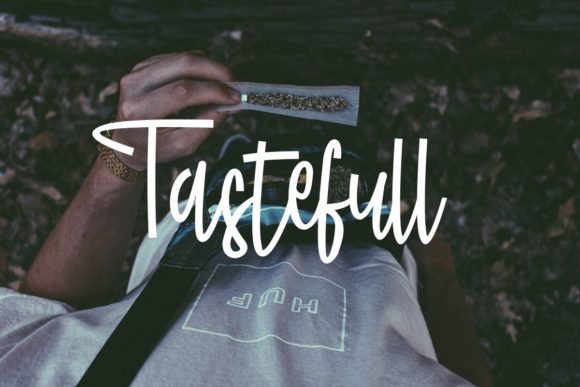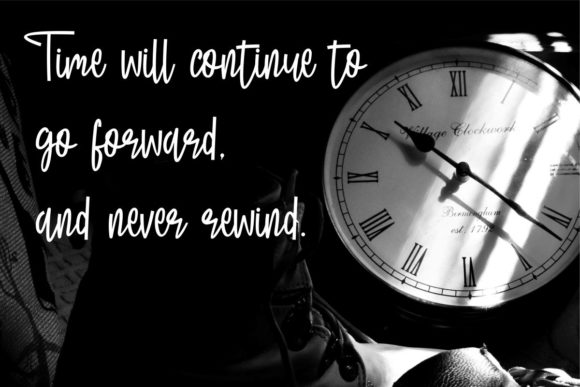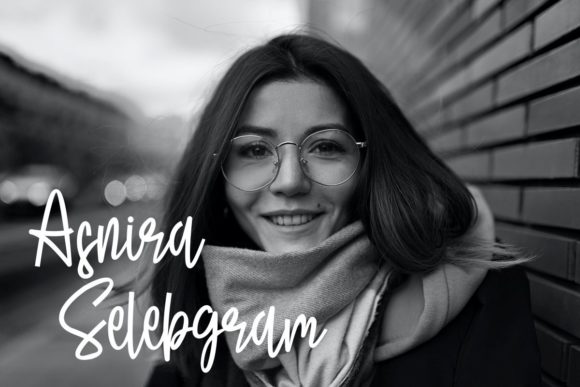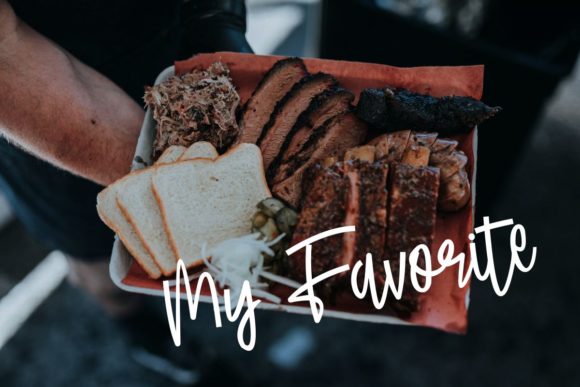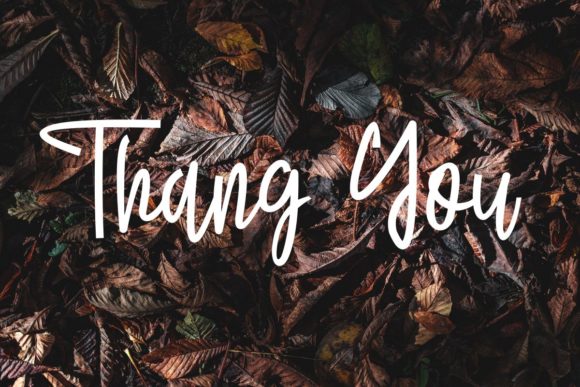
Djarum Solution Font
About Djarum Solution Font
“Djarum Solution” is a one-of-a-kind and intriguing handwritten font that sets itself apart with its unique and captivating design. With its distinctiveness, this font has the potential to add a touch of creativity and originality to a wide range of design projects. Here are some ways you can utilize “Djarum Solution” to elevate your creations and bring your projects to new heights:
1. Branding and Logos: Use “Djarum Solution” for branding purposes, including logos, to give your brand a distinct and memorable identity.
2. Product Packaging: Apply the font to product packaging to create eye-catching and interesting designs that stand out on the shelves.
3. Poster Designs: Design captivating posters with “Djarum Solution” to grab attention and convey messages in a unique and visually appealing way.
4. Magazine Titles: Utilize the font for magazine titles and headlines to add a touch of creativity and intrigue to your publication.
5. Social Media Graphics: Enhance your social media posts with “Djarum Solution” to create engaging and eye-catching content for your audience.
6. T-shirt Designs: Design original and artistic t-shirt graphics using “Djarum Solution” to create standout apparel.
7. Book Covers: Apply the font to book covers, infusing them with a sense of creativity and distinctiveness.
8. Invitations and Greeting Cards: Use “Djarum Solution” for event invitations and greeting cards to add a unique and personal touch to your designs.
9. Artistic Prints: Create artistic prints with “Djarum Solution” to adorn walls with captivating and visually appealing artwork.
10. Website Headers: Incorporate the font into website headers and banners to make a strong visual statement on your website.
11. Quotes and Inspirational Art: Design quote posters or typography art using “Djarum Solution” to convey messages in an original and artistic way.
12. Album Covers: Apply the font to album covers for a distinctive and creative representation of music or podcasts.
13. Packaging Labels: Utilize “Djarum Solution” on packaging labels to add a creative flair to your products.
14. Stationery Design: Use the font on personalized stationery items, such as letterheads and notecards, to create a unique and artistic look.
15. Artistic Typography: Experiment with “Djarum Solution” to create artistic and expressive typography compositions.
The uniqueness and creativity of “Djarum Solution” make it a valuable addition to your font collection. Embrace its intriguing design and let it inspire you to create standout projects that capture the attention and imagination of your audience. With “Djarum Solution,” you have a font that can elevate your designs and bring them to the highest levels of artistic expression.